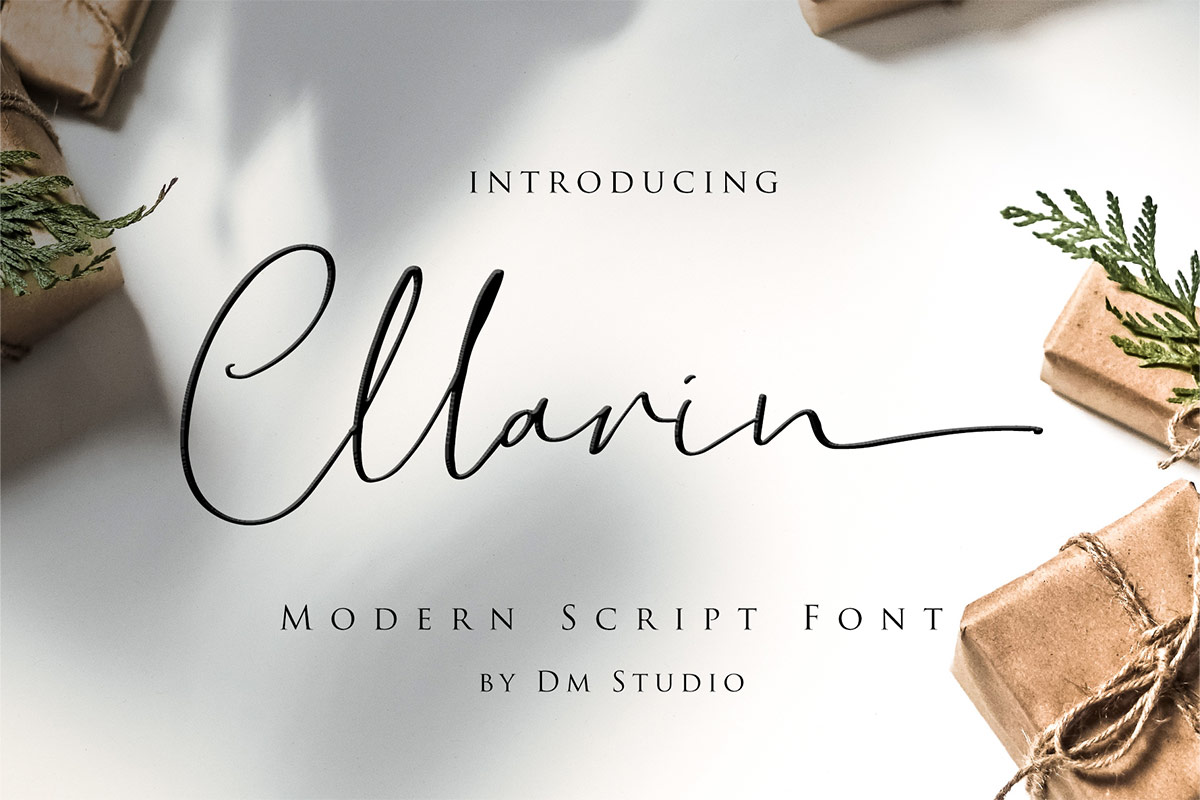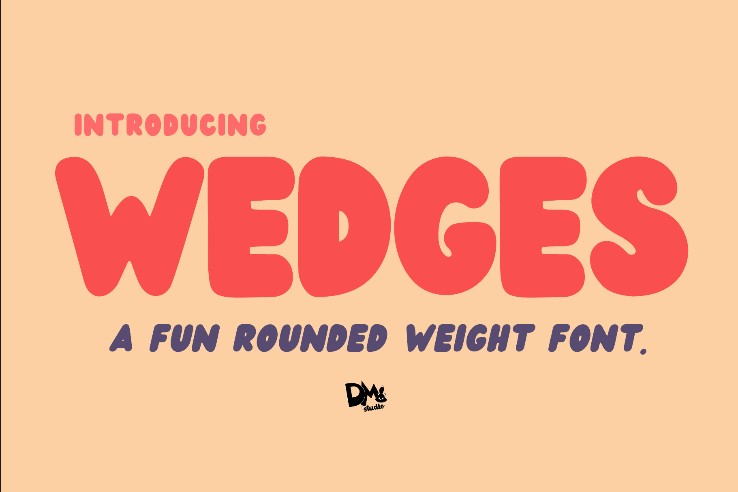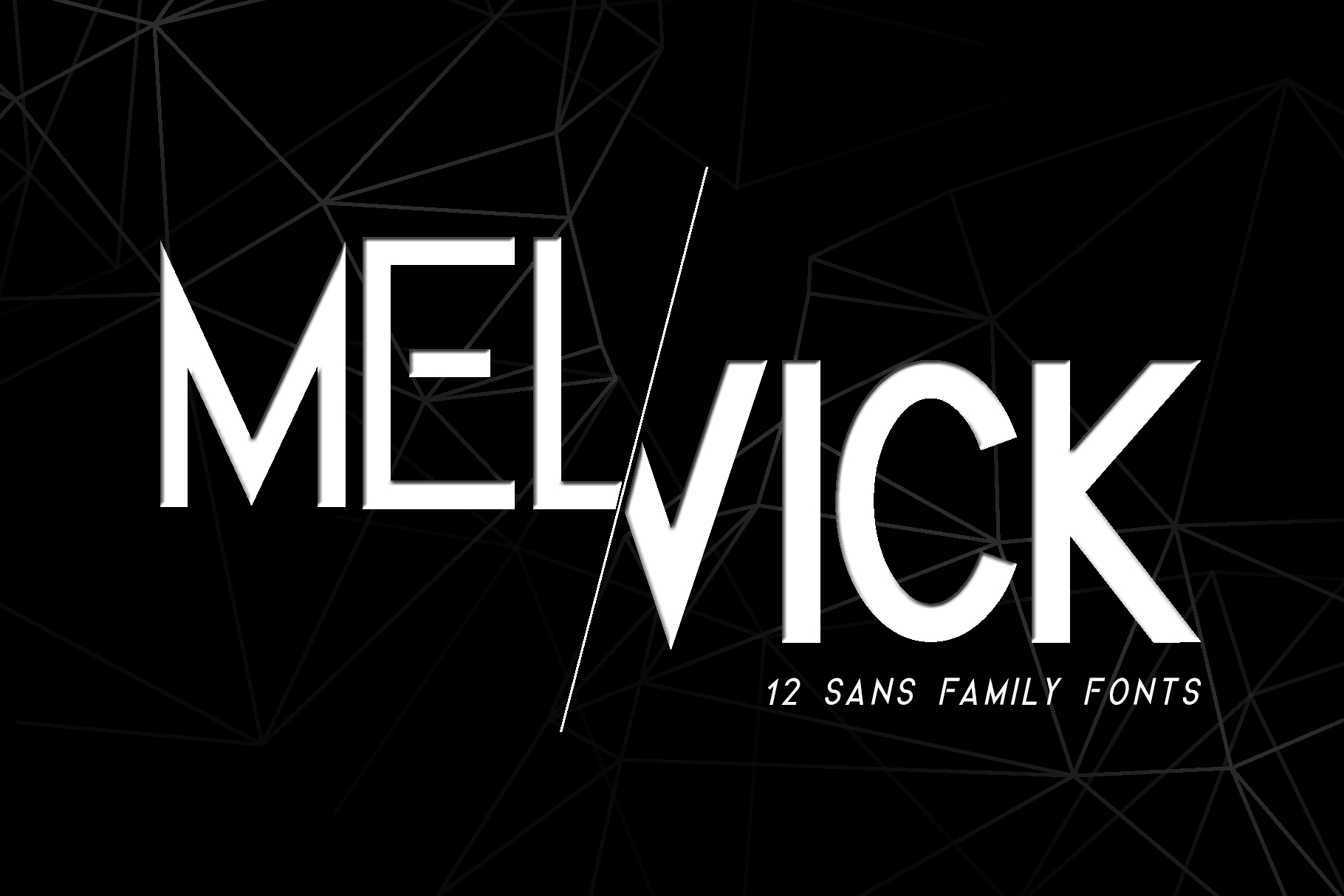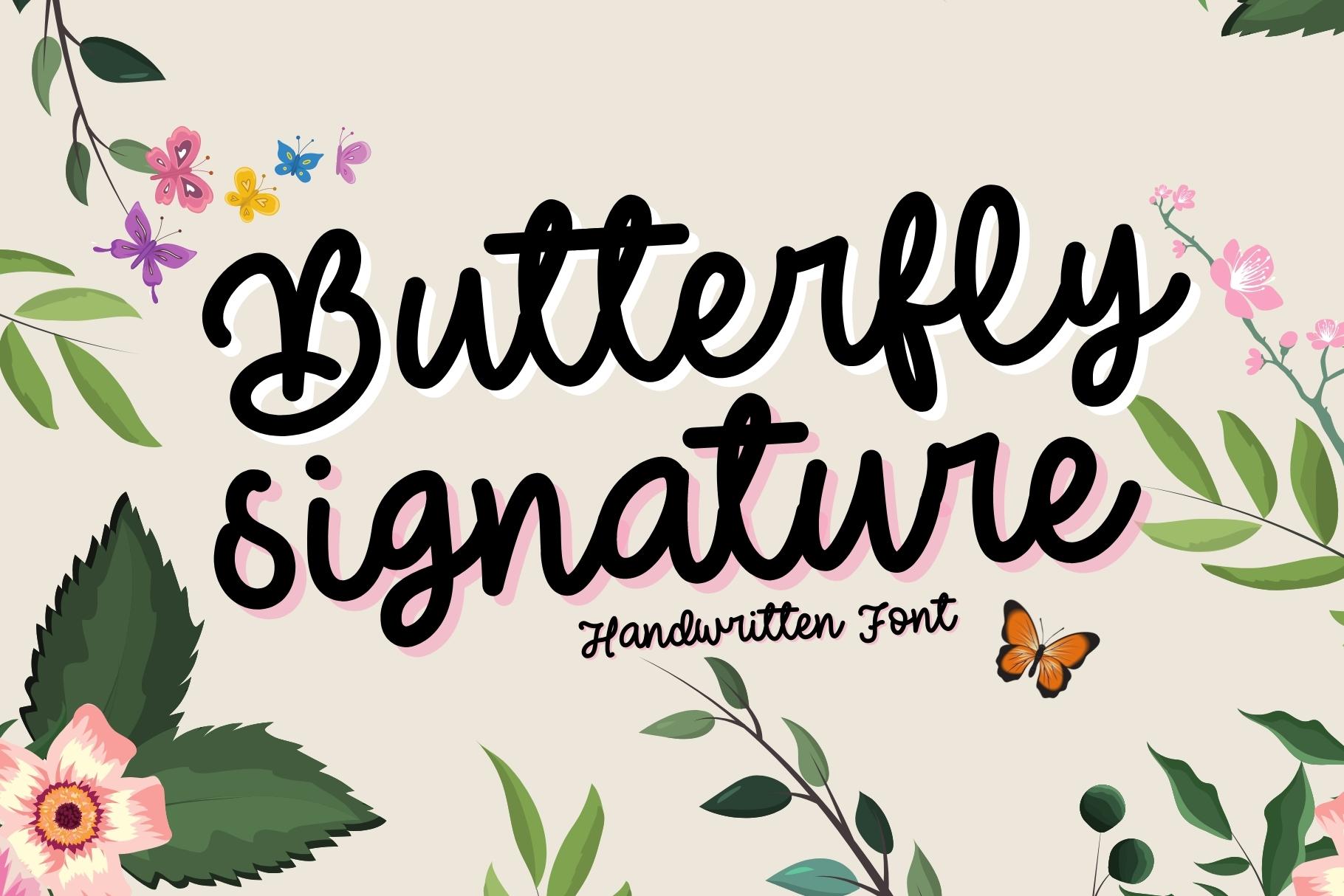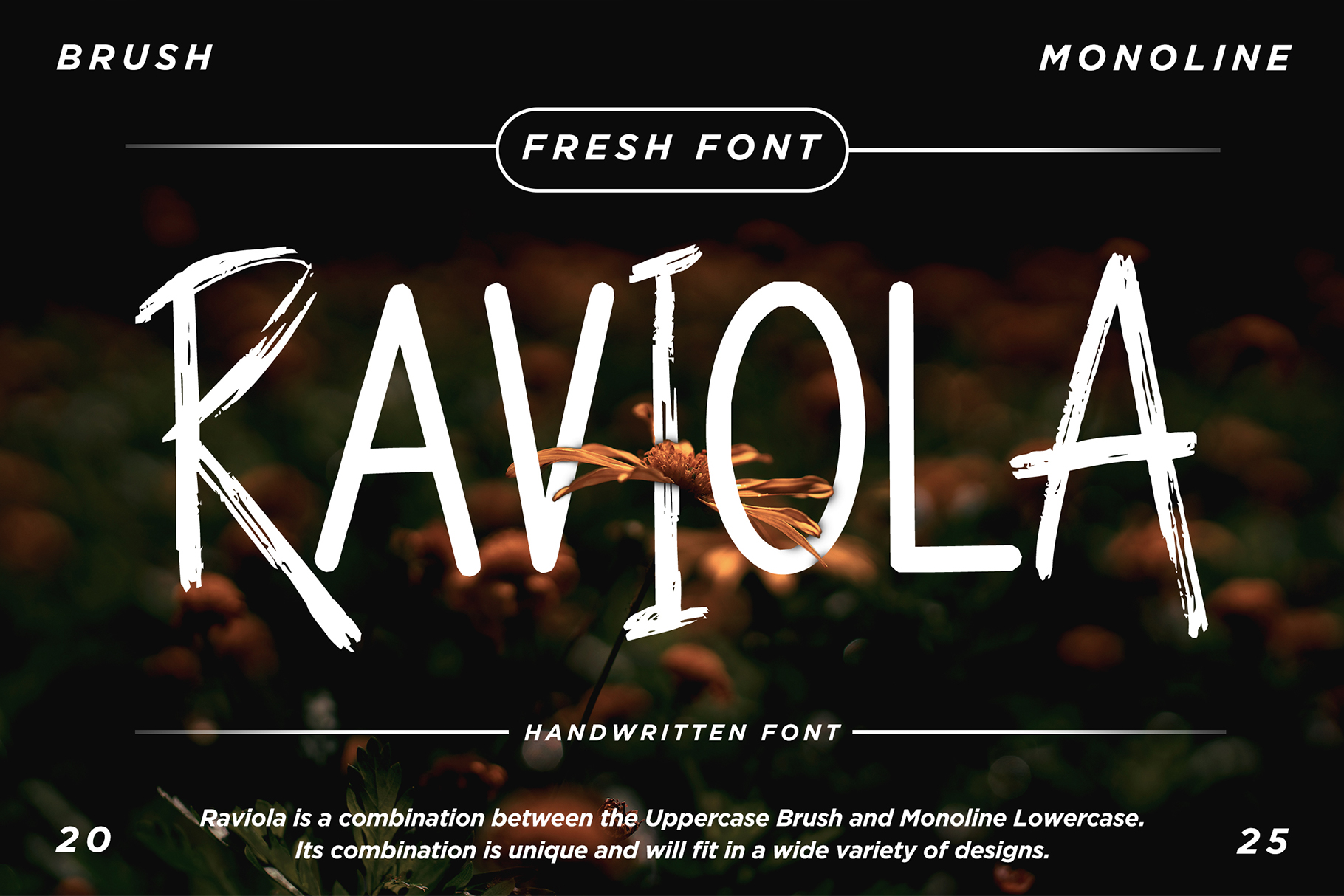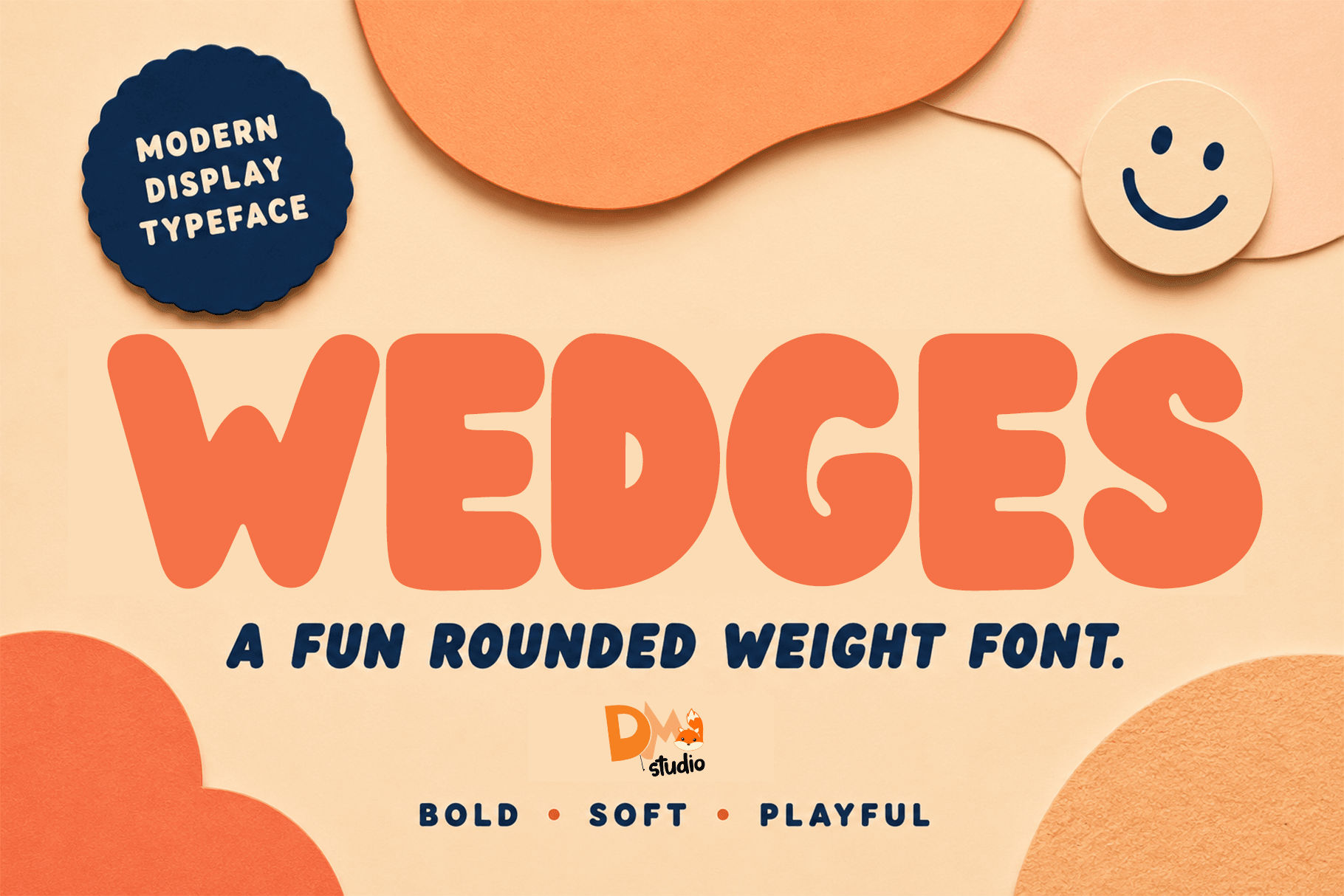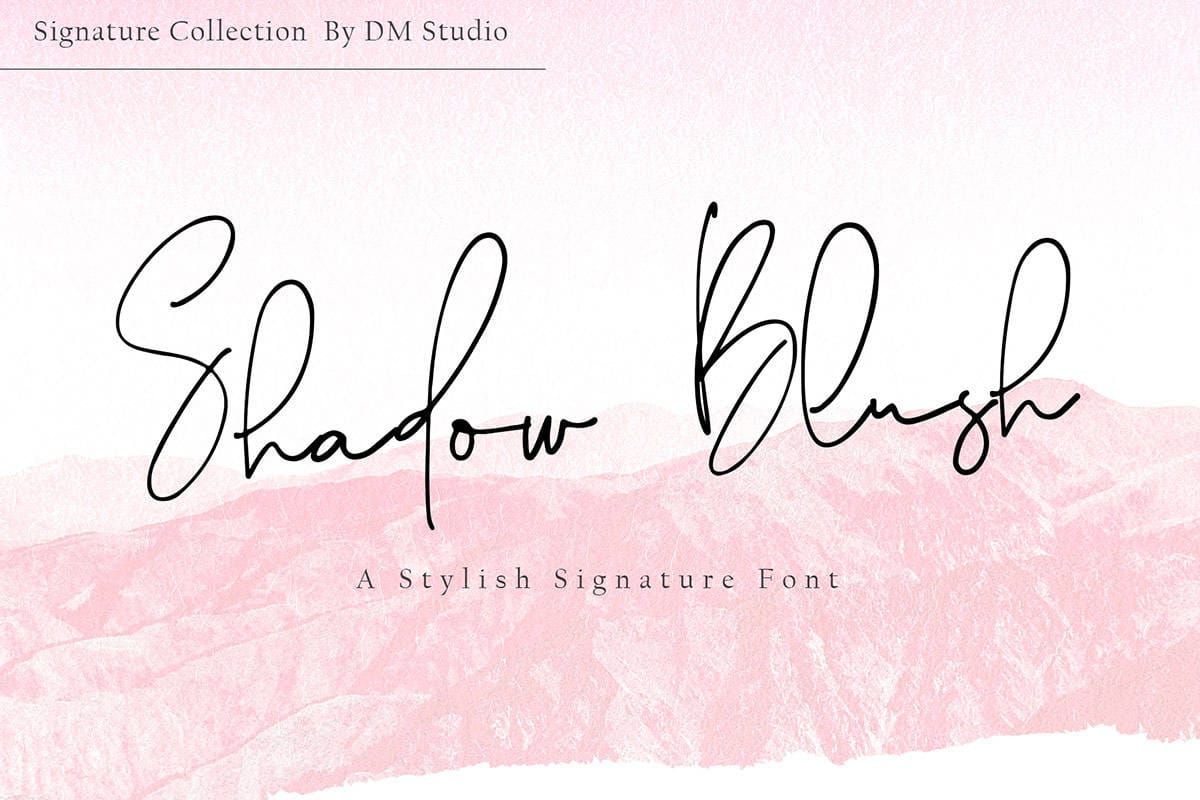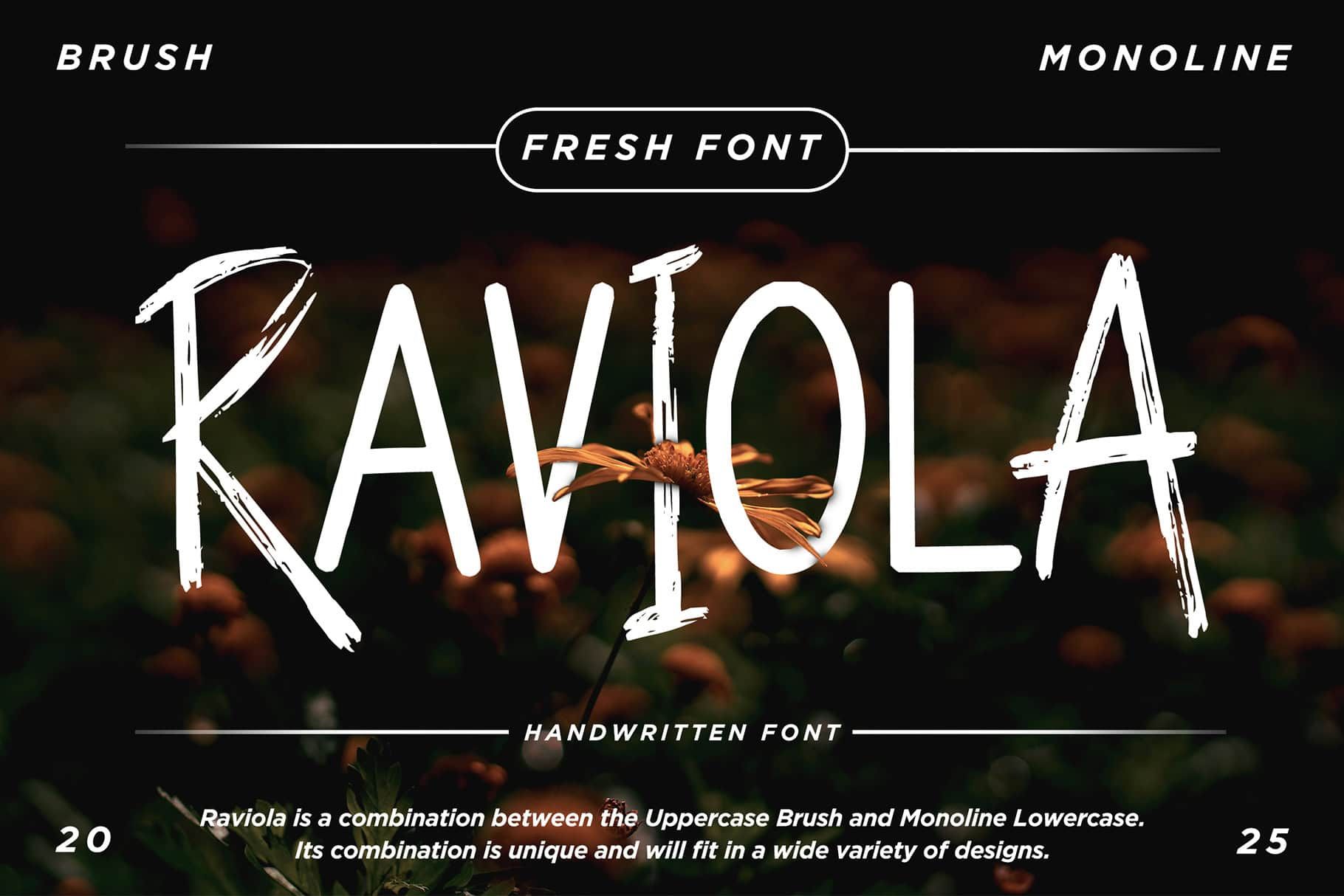
Your Brand, Defined: How to Design Identity That Connects
In today’s competitive market, designing brand identity is more than just creating a pretty logo it’s about building a complete experience that communicates who you are and why you matter. A powerful brand identity connects with your audience emotionally and visually, and with the help of tools like the brand identity prism, you can create a strategic and consistent presence across every touchpoint.
This guide will help you master the art of designing brand identity, using visual elements like color, typography, and imagery supported by a well-structured framework. Plus, we’ll explore curated font pairings (inspired by the image you provided) to help you translate your brand personality into impactful design.
What Is Brand Identity?
Before diving into designing brand identity, let’s clarify what it means. Your brand identity is the collection of visual and verbal elements that represent your business. These include your:
• Logo
• Fonts and typography
• Color palette
• Voice and tone
• Imagery and graphics
• Tagline or mission statement
A consistent and compelling brand identity ensures customers recognize and trust your business, whether they’re seeing your website, packaging, social media, or emails.
Why Designing Brand Identity Is Essential
When you’re designing brand identity strategically, you’re not just choosing colors or fonts randomly. You’re shaping how your audience perceives and relates to your business. Here are a few benefits:
• Creates a professional image
• Builds trust and recognition
• Communicates your values and purpose
• Differentiates you from competitors
• Supports brand consistency
To succeed, you need more than creativity you need clarity. That’s where the brand identity prism comes into play.
Introducing the Brand Identity Prism
Created by Jean-Noël Kapferer, the brand identity prism is a framework that breaks down a brand’s identity into six elements:
1. Physique – Physical aspects like logo, colors, and typography.
2. Personality – Brand tone, style, and behavior.
3. Culture – Values and beliefs behind the brand.
4. Relationship – How the brand interacts with customers.
5. Reflection – How the brand views its ideal customer.
6. Self-image – How the customer feels using the brand.
Using this model while designing brand identity ensures your visuals, messaging, and design decisions align with your brand’s core.
Font Pairings to Reinforce Brand Identity
Typography is a powerful tool for defining personality and tone. Here are handpicked font pairings (inspired by your uploaded image) that can elevate your designs:
1. Raviola + Butterfly Signature
• Use for: Beauty, fashion, or feminine lifestyle brands
• Why it works: Raviola brings elegant curves, while Butterfly Signature adds a chic handwritten signature perfect for branding that feels refined and intimate.
2. Cllarin + Jack Laguna
• Use for: Creative agencies or modern brands
• Why it works: Cllarin offers clarity and simplicity, while Jack Laguna brings personality ideal for showcasing brand duality: professional yet personal.
3. Melvick + Shadow Blush
• Use for: Food, wellness, or coaching brands
• Why it works: Melvick is clean and grounded, while Shadow Blush introduces warmth and friendliness creating a balanced tone.
4. Wedges + Love Maze
• Use for: Children’s products or whimsical brands
• Why it works: Wedges playful roundness contrasts with Love Maze elegance, expressing joy and trust.
Designing Brand Identity That Reflects Your Core
Let’s break down how to apply the brand identity prism when designing brand identity with fonts, visuals, and strategy:
Physique – Crafting Visual Consistency
Start with the tangible. Your logo, fonts, and colors should align with your brand essence.
Key actions:
• Choose two consistent fonts: one for headers (expressive), one for body text (legible).
• Use your primary color palette consistently.
• Ensure visuals align across your website, packaging, and social media.
Personality – Finding Your Brand’s Voice
Are you playful, serious, luxurious, or edgy?